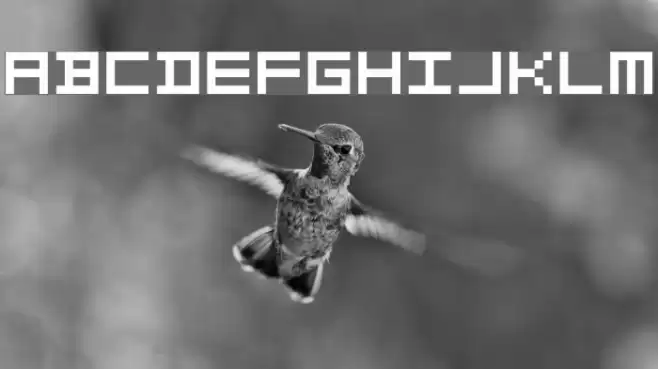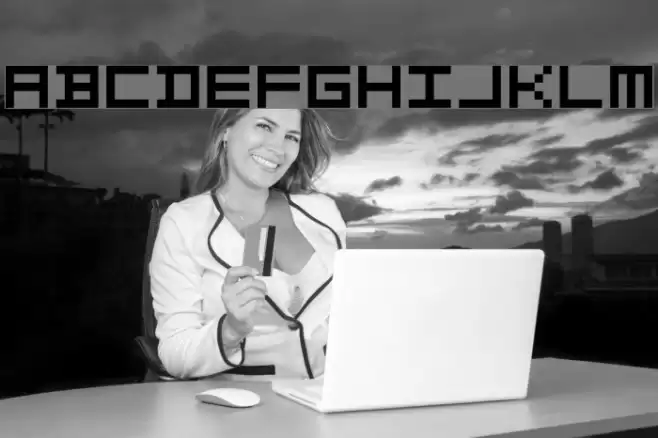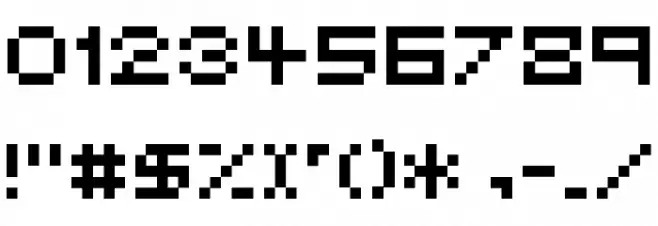
Period X Font
Period X Description
This font features a bold, pixelated style reminiscent of early digital displays and video games. Each character is composed of uniform square blocks, giving it a distinctly retro, 8-bit appearance. The uppercase and lowercase letters maintain a consistent height, with minimal differentiation between them, enhancing the blocky aesthetic. Numbers and special characters follow the same design principles, ensuring a cohesive look across all glyphs. The font's geometric nature makes it highly legible at various sizes, though it is best suited for larger displays where its unique style can be fully appreciated.
A bold, pixelated font with a retro, 8-bit digital style from Computer fonts.
- Overall Style: Retro, Digital